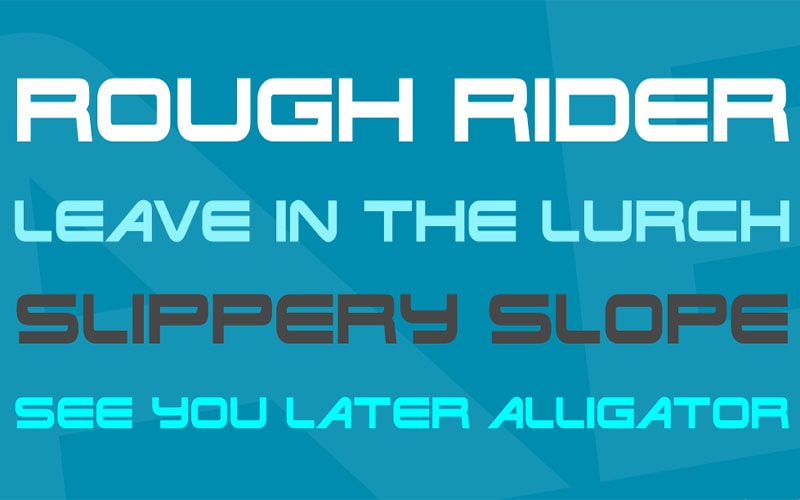
Terminator Real NFI Font is a bold and futuristic typeface inspired by the iconic lettering used in the Terminator movie franchise. Designed to make a statement, the font’s strong letterforms ensure it stands out in any design.
The font was designed by Norfok Incredible Font Design, a studio known for creating unique and high-impact typefaces. Their expertise in developing fonts that capture the essence of specific themes and genres is evident in the precise and bold design of Terminator Real NFI.
Its strong, angular lines and high-tech aesthetic make it an ideal choice for projects that seek to convey a sense of power, technology, and science fiction.
It typically comes in a single, striking style. The design features sharp, angular letterforms with a high-tech, mechanical feel, reminiscent of the futuristic themes of the Terminator series.